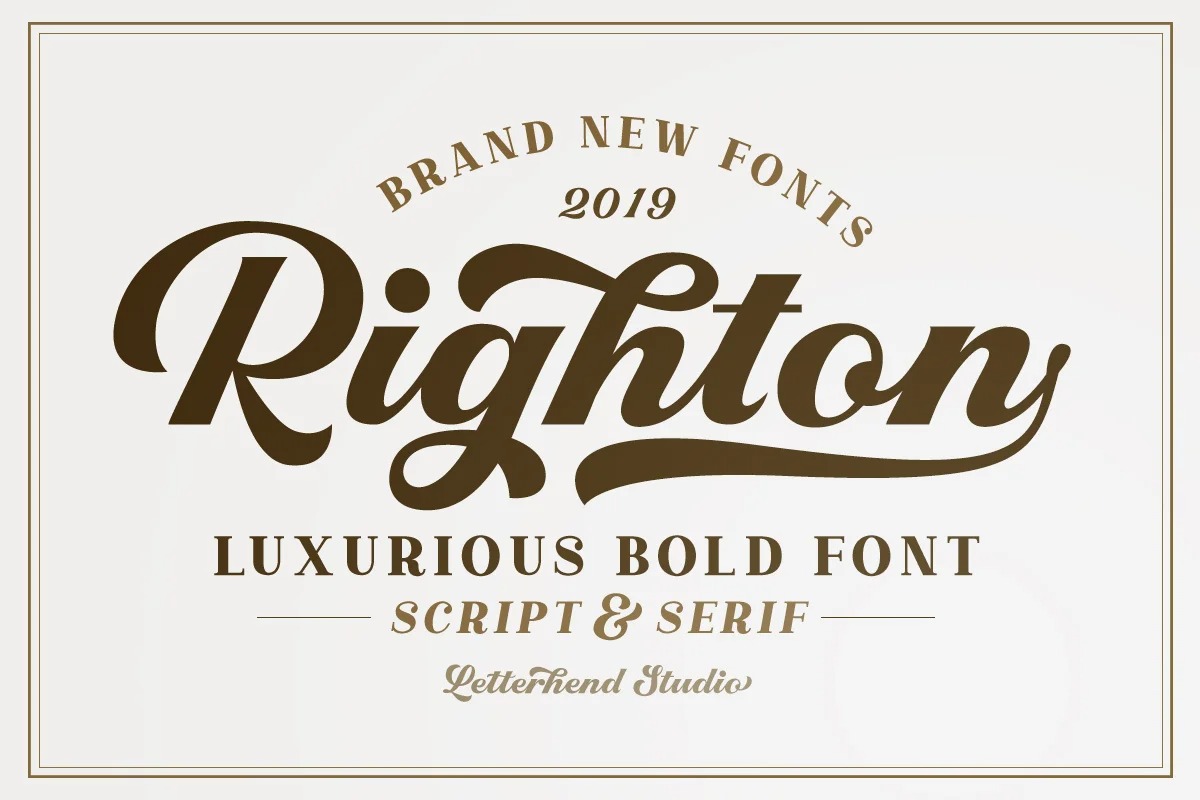
Righton Font
Righton Calligraphy Font
This is a modern and elegant serif font manufactured by Letterhend Studio. It is a super unique ligature font that you wont forget! It contains two fonts, script and serif which perfectly paired. They works perfect for you who needs a typeface for headline, logotype, apparel, invitation, branding, packaging, advertising etc. This typeface is comes in uppercase, lowercase, punctuation, symbols, numerals, stylistic set alternate, ligatures, etc also support multilingual.